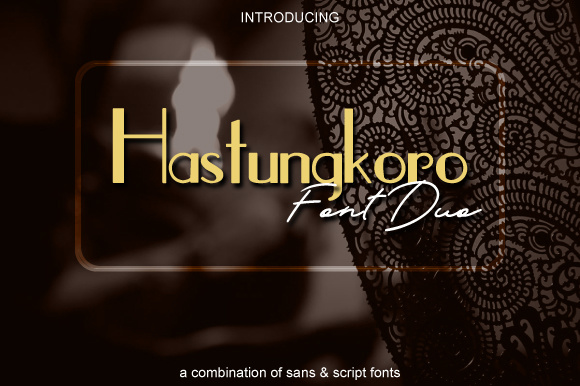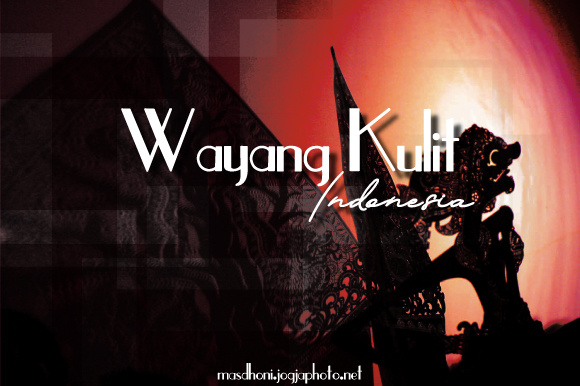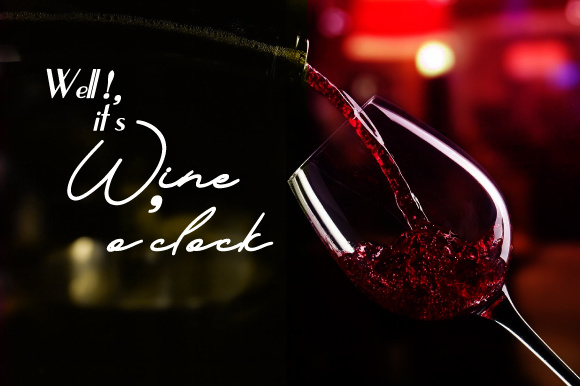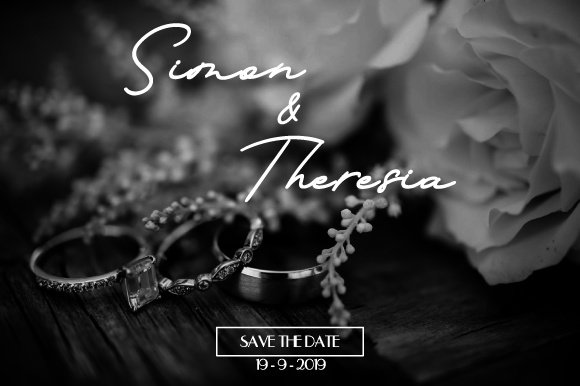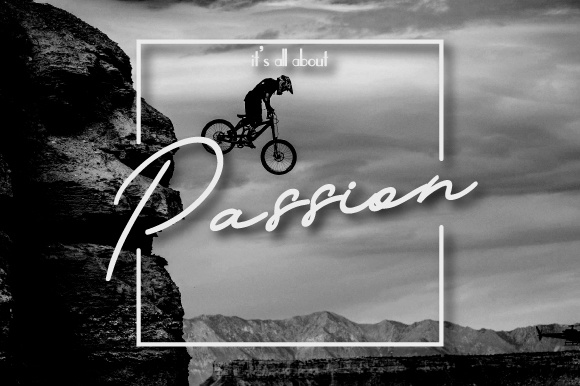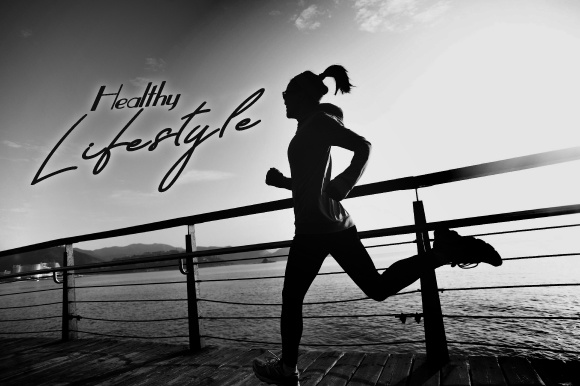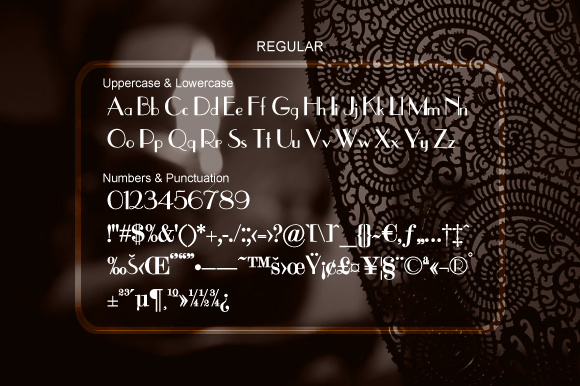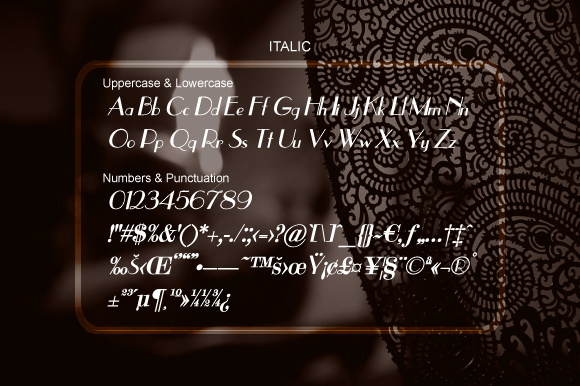
Hastungkoro Duo Font
The Hastungkoro Duo combines a fun script with a stunning sans.
With this beautiful combination, you can add a unique, coherent look & feel to your designs.